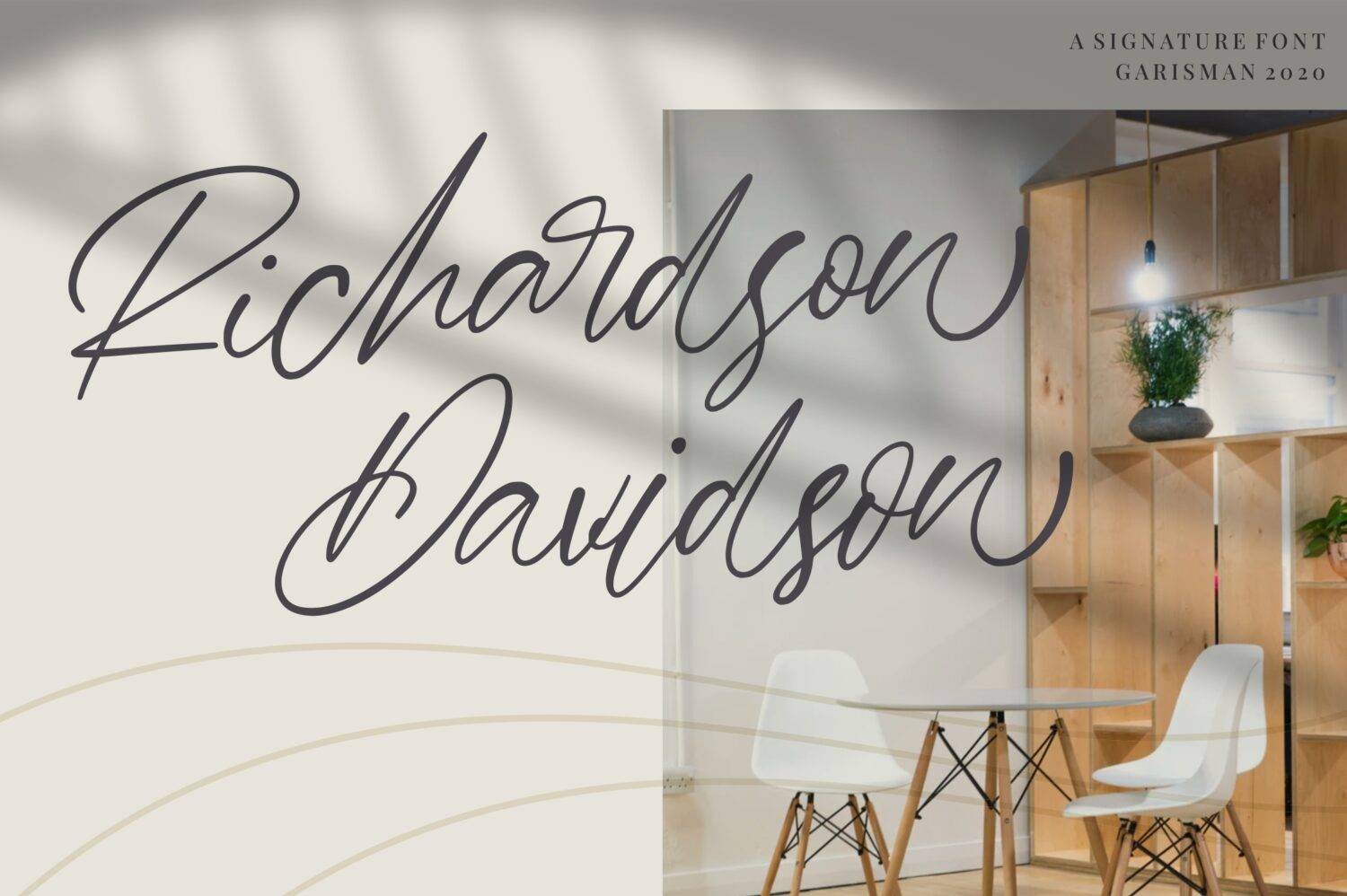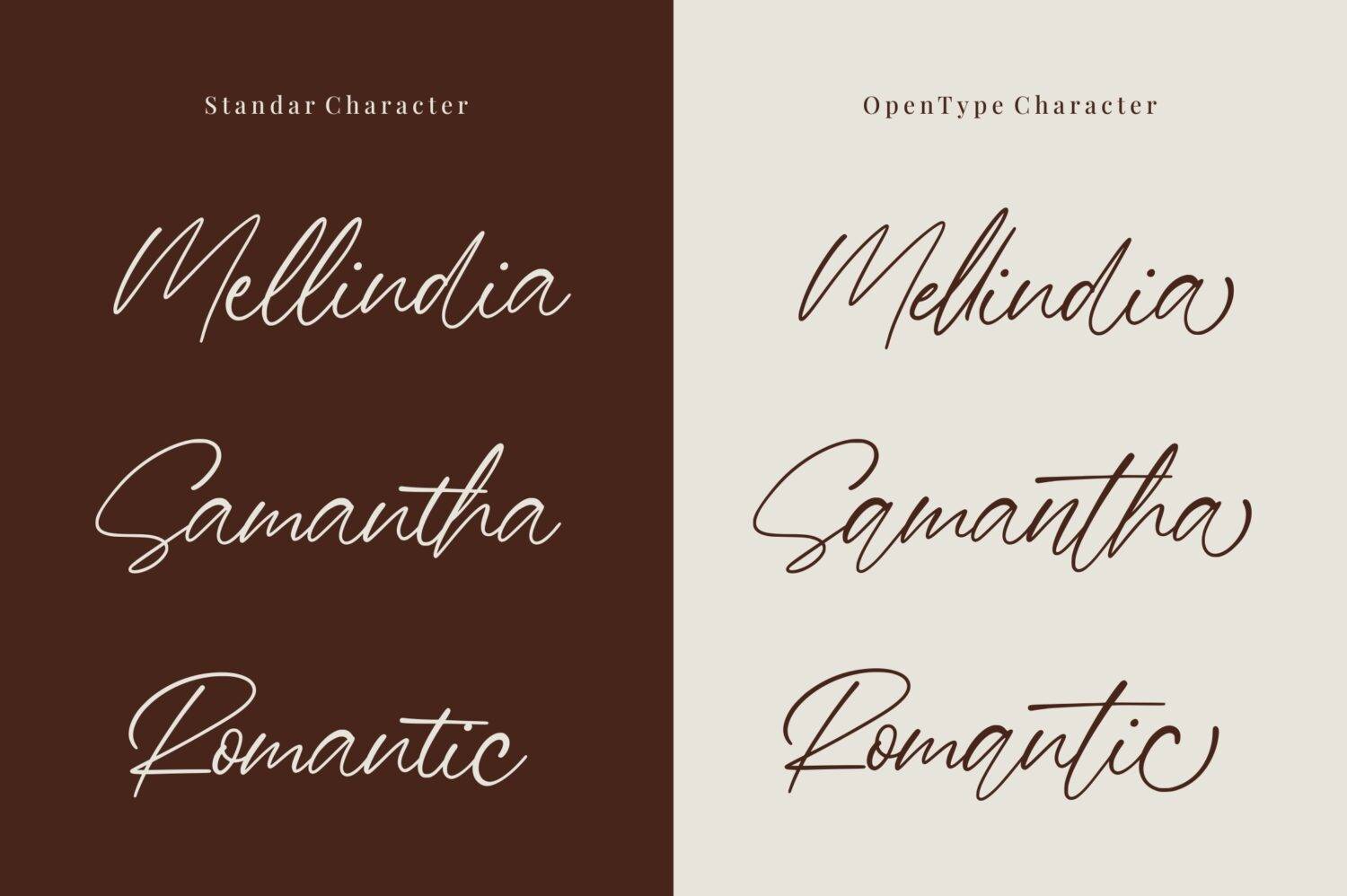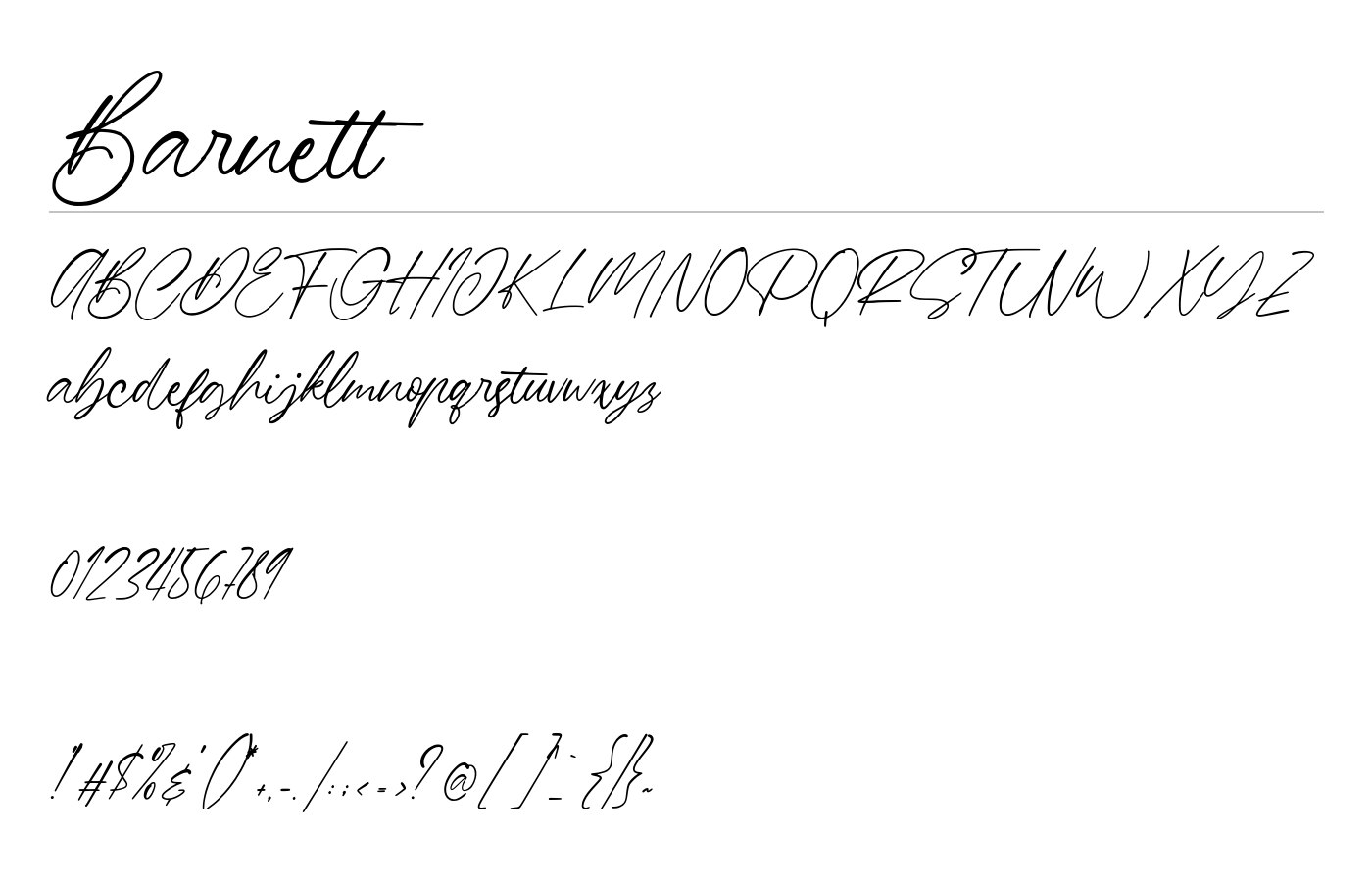
Barnett is an elegant, lightweight script font with a delicate, handwritten feel characterized by flowing, connected strokes and a natural cursive style. Its thin, consistent line weight and slightly tall x-height make it perfect for adding a refined, personal touch to invitations, branding, and editorial designs where a graceful and stylish atmosphere is desired. This font works beautifully in contexts that seek a blend of sophistication and warmth without overwhelming the design.
Barnett Font
About Barnett Font
| Font family | Barnett Font |